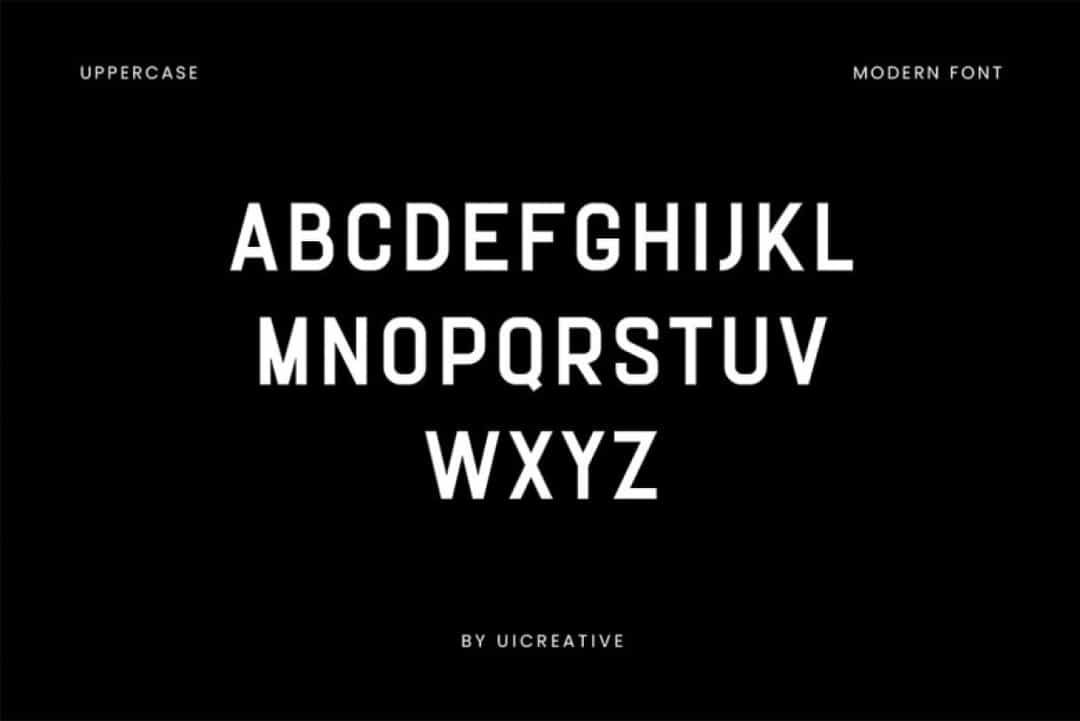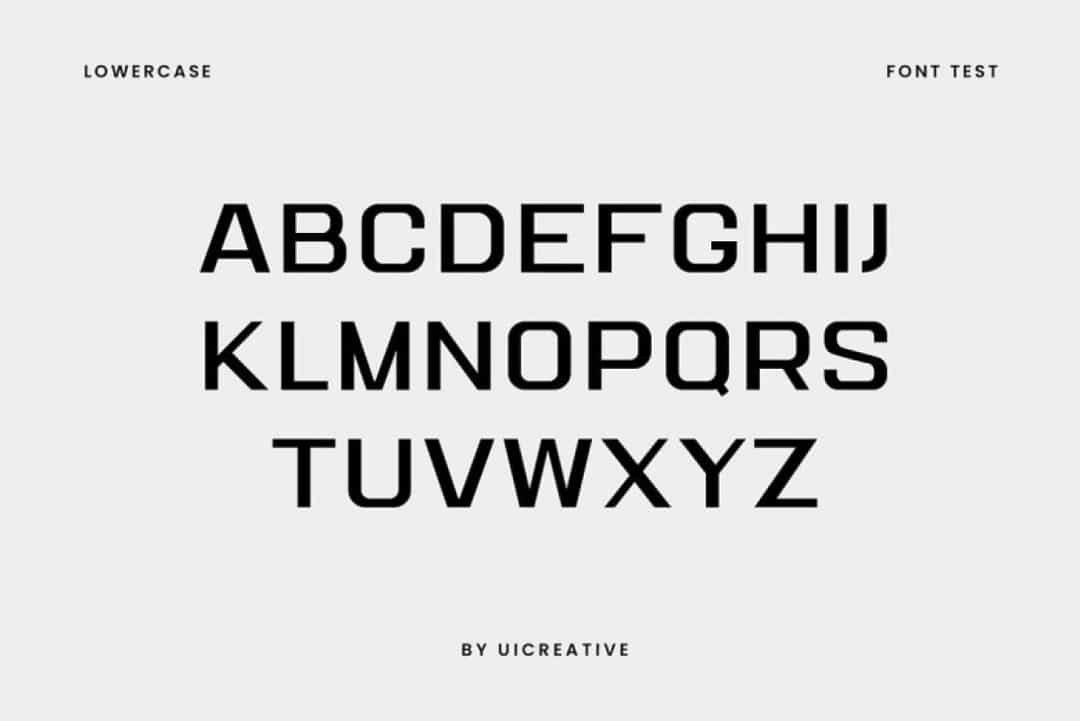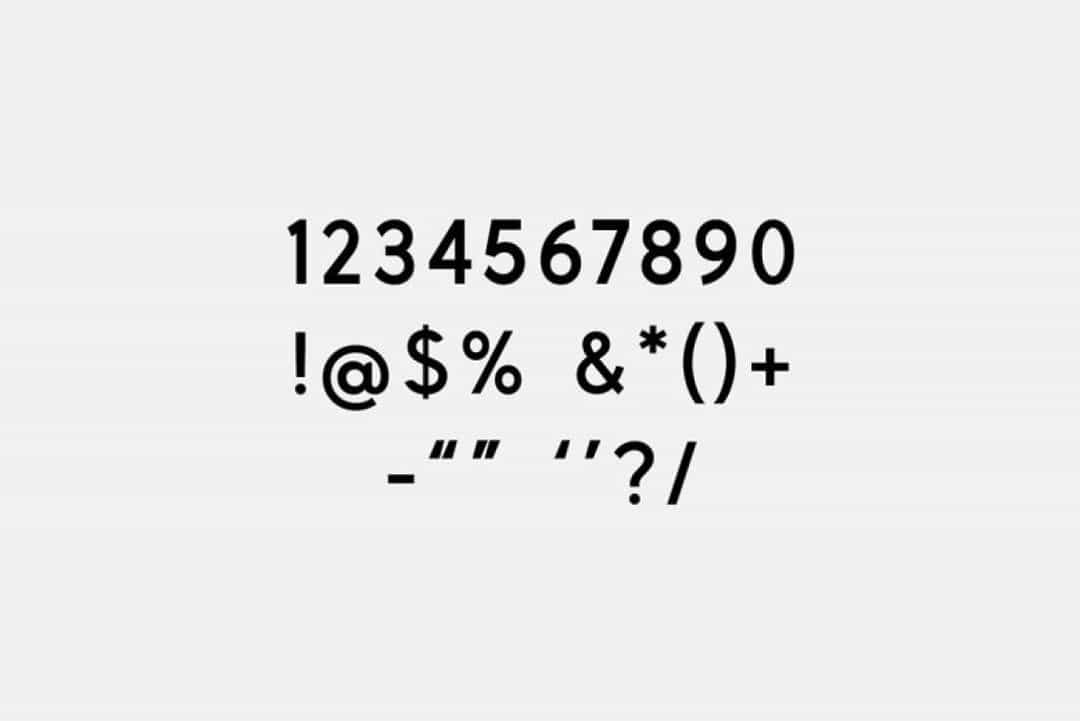
Langostions is an elegant modern sans-serif typeface. Perfect for a variety of designs including logos, stationery, signature wedding invitations, typography quotes on book covers or magazine covers, headers for websites or clothing packaging design branding purposes and much more, Langostions font is ideal.